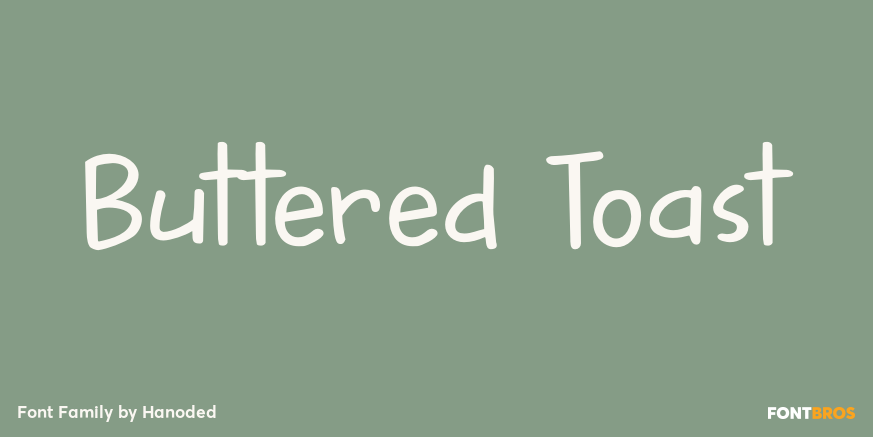
About Buttered Toast
Buttered Toast is something a lot of people enjoy every day; when I was working on this font I was hoping to create something similar: an uncomplicated font enjoyed by many. The resulting typeface is exactly what is promised on the package: Buttered Toast…